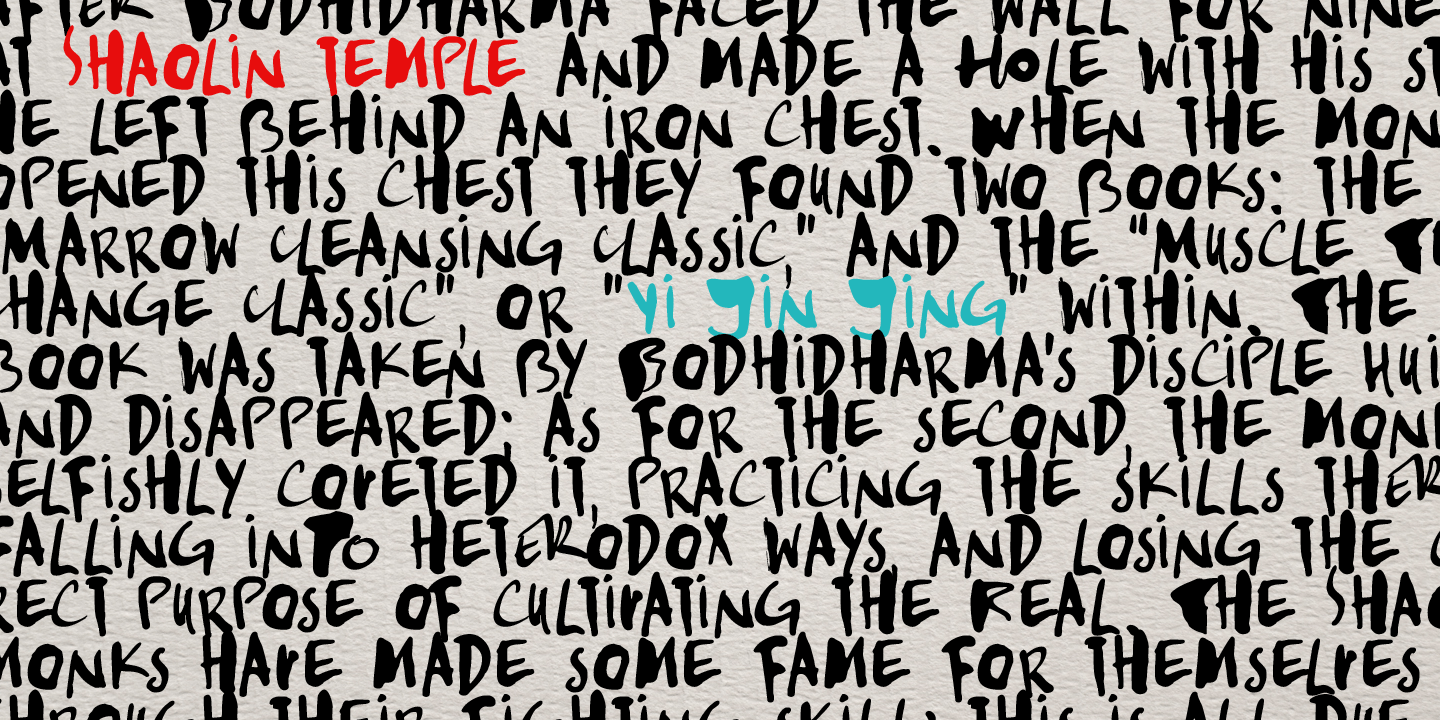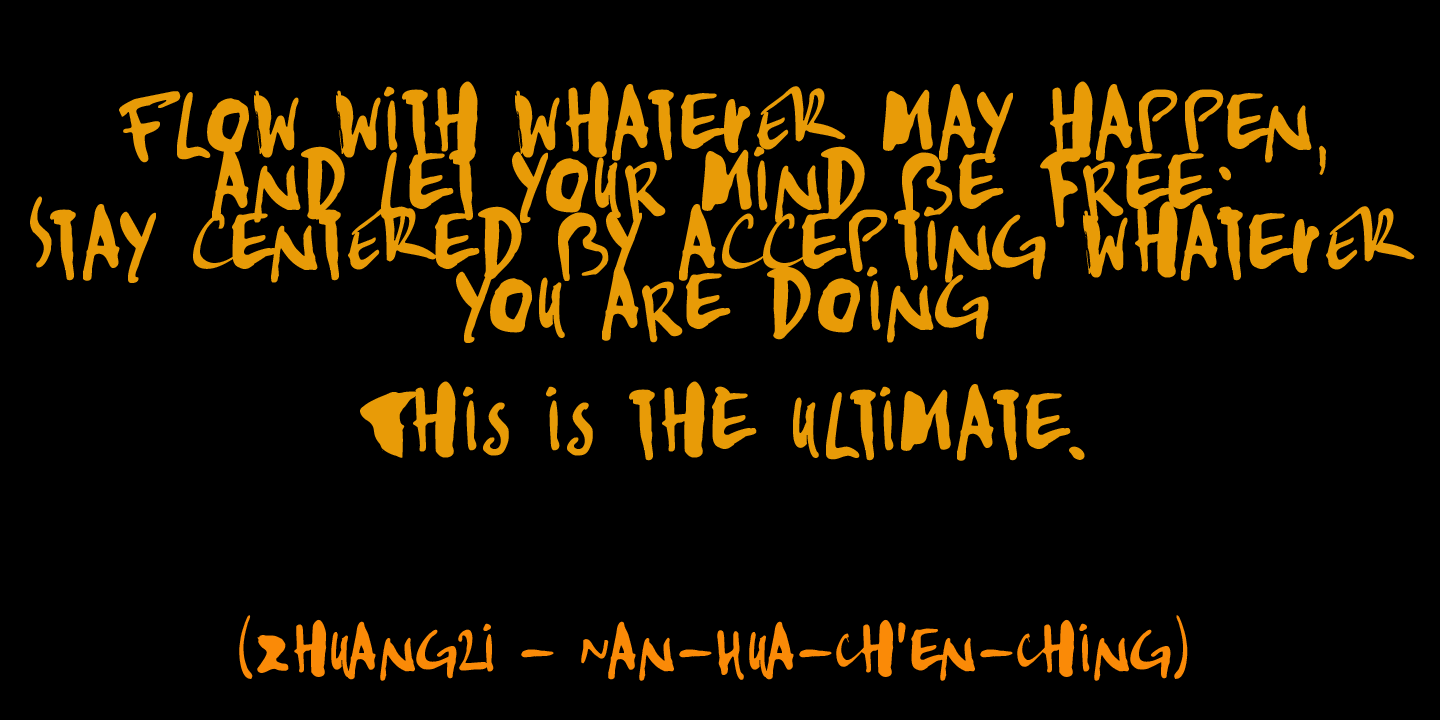
Kempoka
Font Family by Hanoded
Kempoka is a Japanese word describing someone who practices Kempo. Kempo, or Chuan Fa in Chinese, is a martial art with roots in China and Japan. I thought of this brush font just before my weekly kempo-training and I figured the name suited the font style.
Kempoka comes with alternates and ligatures, and has a black belt in diacritics!